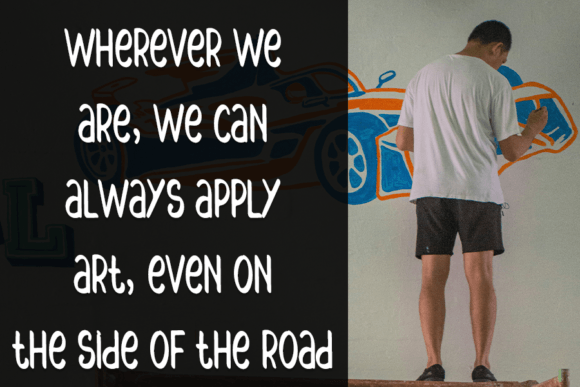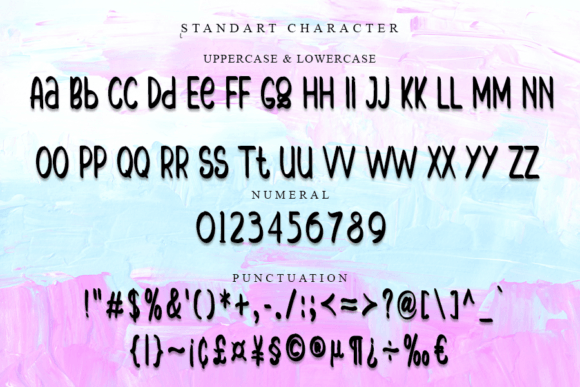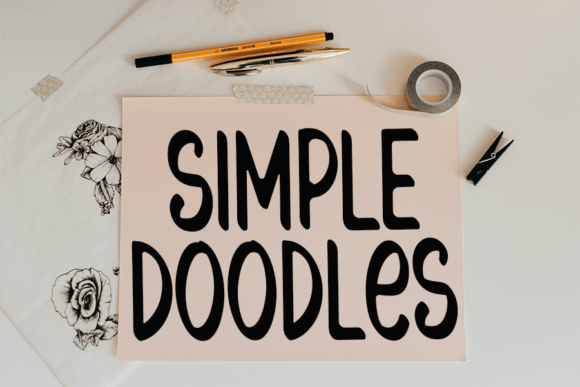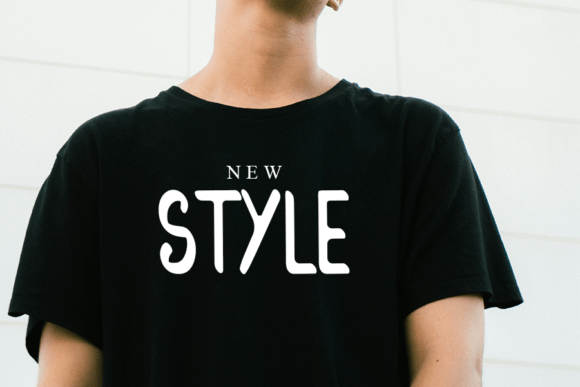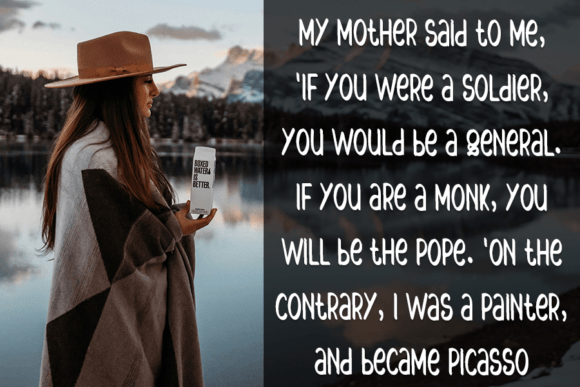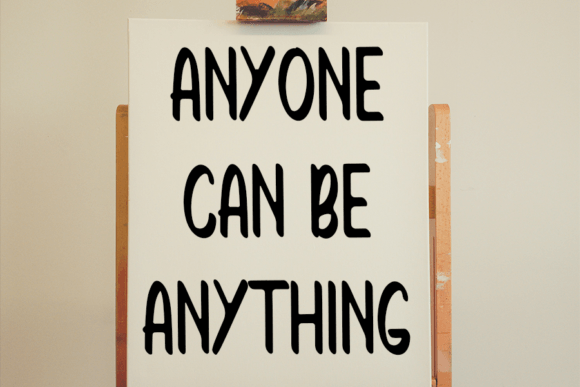
Discover the Elegance of Canva Font: Elevate Your Designs and DIY Projects
Canva Font is a modern sans-serif font that embodies elegance and versatility. This carefully crafted font is designed to bring a touch of sophistication to any creative project, whether you’re a designer, crafter, or DIY enthusiast. With Canva Font, you can transform your ideas into stunning visual masterpieces that capture attention and inspire imagination.
The Story Behind Canva Font
Canva Font was created with the goal of providing a unique and versatile typography solution for designers and crafters. Its modern sans-serif design makes it perfect for a wide range of applications, from digital media to print materials. The font’s clean lines, subtle curves, and balanced proportions make it easy to read and visually appealing.
Key Features of Canva Font
- Modern sans-serif design: Canva Font boasts a sleek and contemporary design that works well in various contexts.
- Elegant and sophisticated: The font’s subtle elegance makes it perfect for projects that require a touch of refinement.
- Highly versatile: Canva Font can be used for a wide range of applications, from Instagram graphics to calligraphy scripts and DIY projects.
- Easy to read: The font’s clear and balanced design ensures that your text is easy to read, even at small sizes.
Using Canva Font for Instagram and Social Media
In today’s digital age, having a strong visual presence on social media is crucial. Canva Font is an excellent choice for creating engaging Instagram graphics, Facebook posts, and other social media content. Its modern design and elegant feel make it perfect for:
- Instagram quotes and captions: Add a touch of sophistication to your Instagram posts with Canva Font.
- Social media graphics: Create stunning social media graphics, such as infographics, promotions, and announcements.
- Branding and identity: Establish a consistent visual identity for your brand using Canva Font.
Canva Font for Calligraphy and DIY Projects
Beyond digital applications, Canva Font is also suitable for calligraphy and DIY projects. Its elegant design and versatility make it an excellent choice for:
- Calligraphy scripts: Use Canva Font to create beautiful calligraphy scripts for special occasions or DIY projects.
- Handmade cards and invitations: Add a touch of elegance to your handmade cards and invitations.
- DIY crafts and decorations: Use Canva Font to create stunning DIY crafts and decorations, such as signs, banners, and wall art.
Tips for Using Canva Font Effectively
To get the most out of Canva Font, consider the following tips:
- Experiment with font sizes and colors: Find the perfect combination to make your text stand out.
- Pair with other fonts: Combine Canva Font with other fonts to create visually appealing contrast.
- Use for headlines and body text: Canva Font works well for both headlines and body text, making it a versatile choice.
Canva Font is a versatile and elegant typography solution that can elevate any creative project. Whether you’re a designer, crafter, or DIY enthusiast, this modern sans-serif font is perfect for transforming your ideas into stunning visual masterpieces. With its clean design, subtle elegance, and high versatility, Canva Font is an excellent choice for a wide range of applications. So why wait? Discover the power of Canva Font and take your designs and DIY projects to the next level!